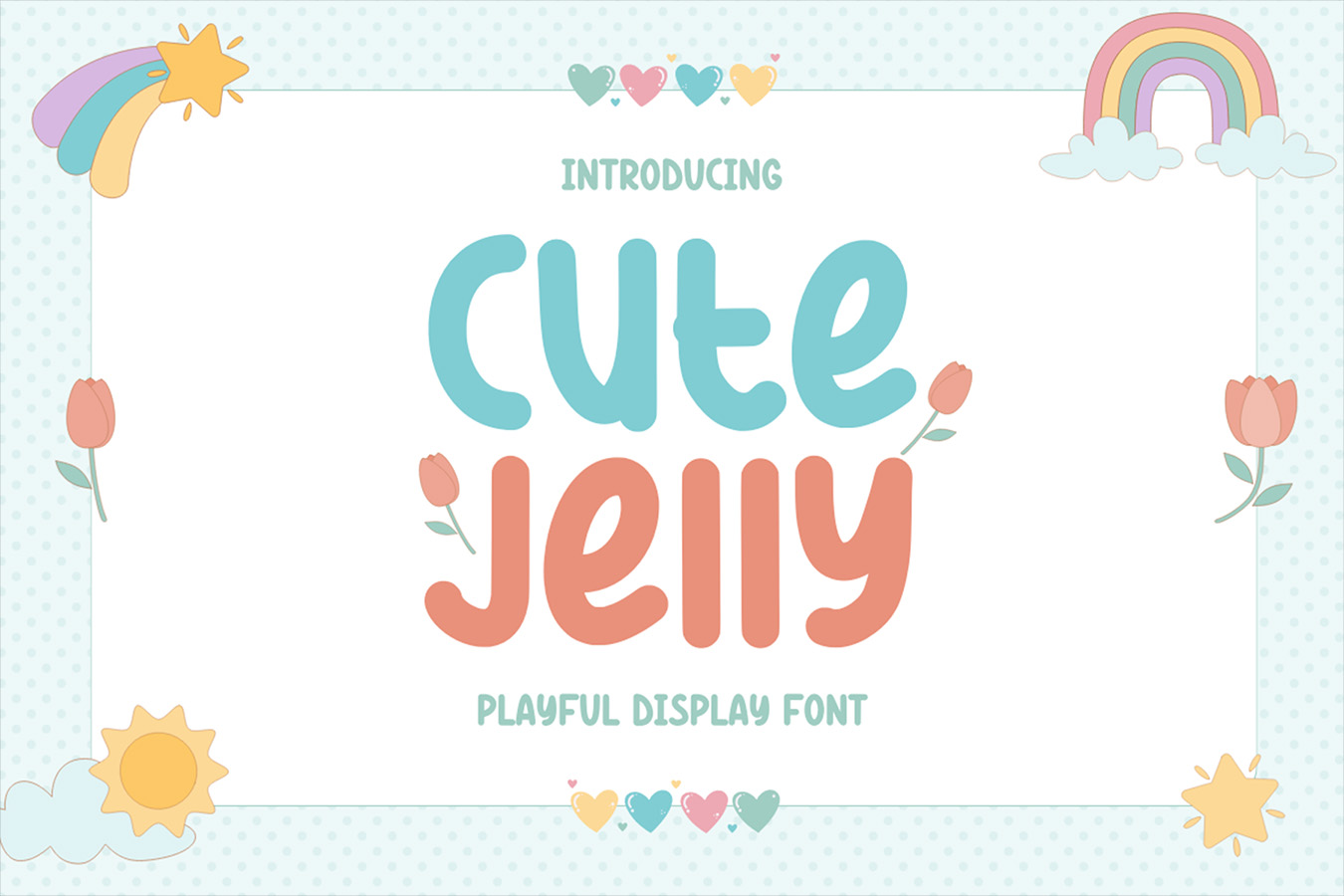
Cute Jelly Font
About Cute Jelly
Cute Jelly font is a playful display font that is perfect for a variety of uses. This font is available in TTF and OTF formats, so it can be used in a variety of graphic design and social media applications.